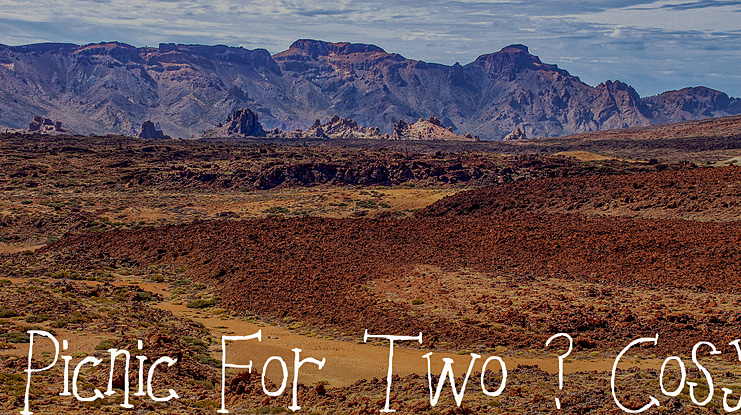
Picnic For Two _ Cosy Font
This 'Picnic For Two - Cosy' font has the letters closer together. The background image for the font is by 'Inspired Images' at Pixabay. Pay only 99c at https://www.creativefabrica.com/designer/shelley-2 to use it commercially.